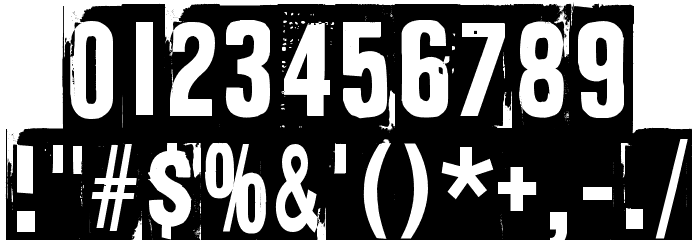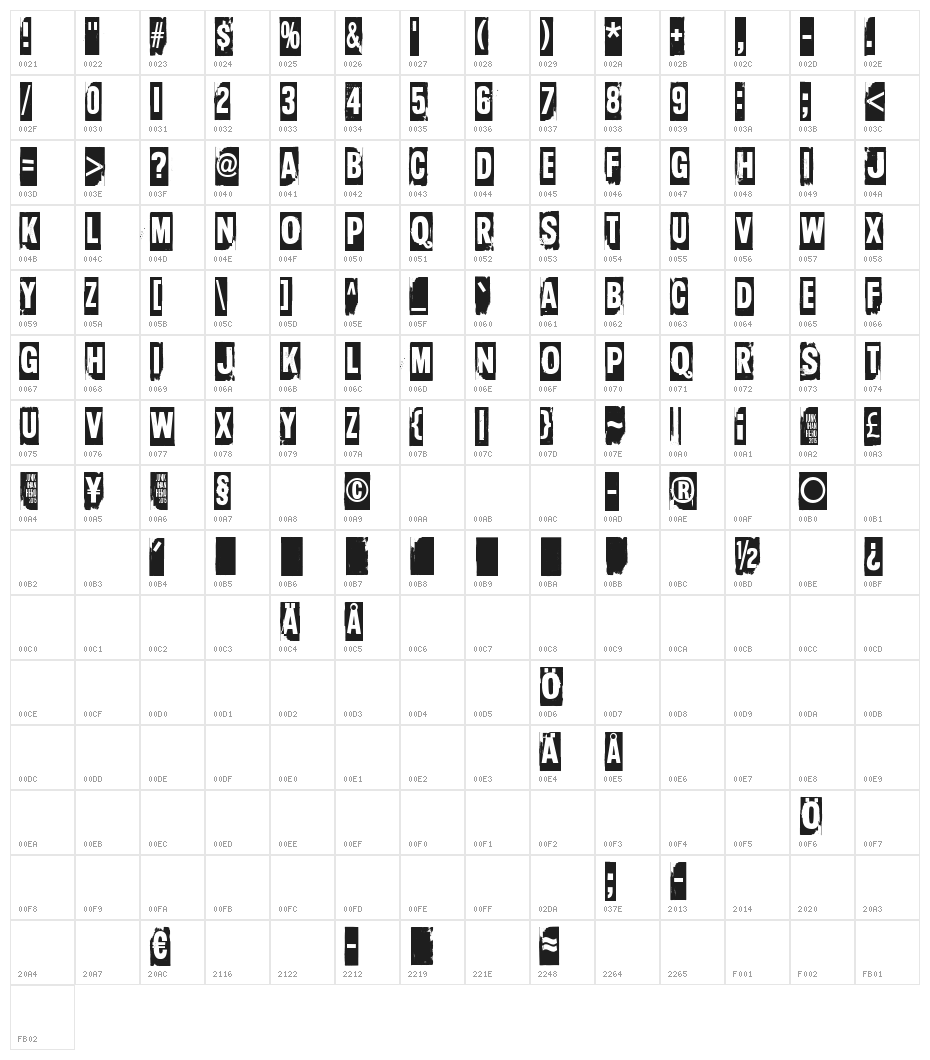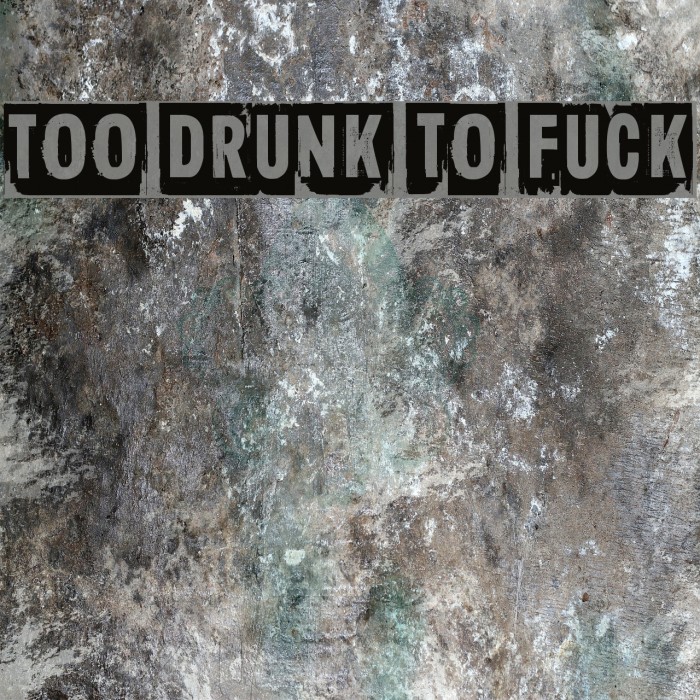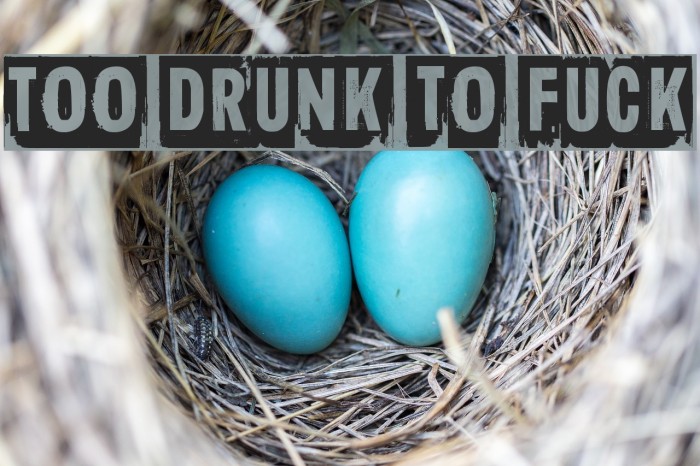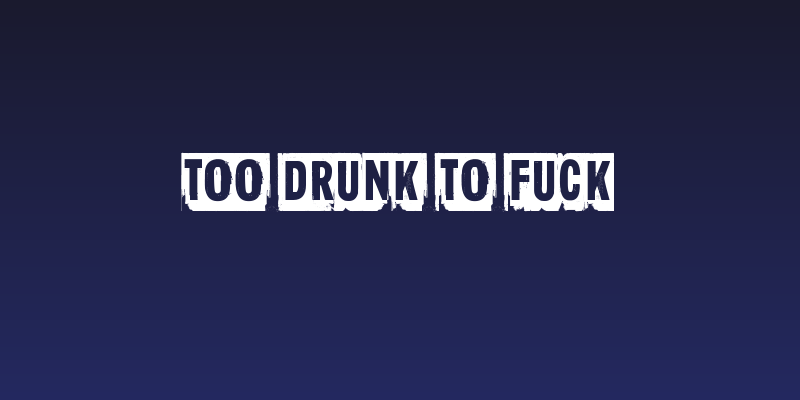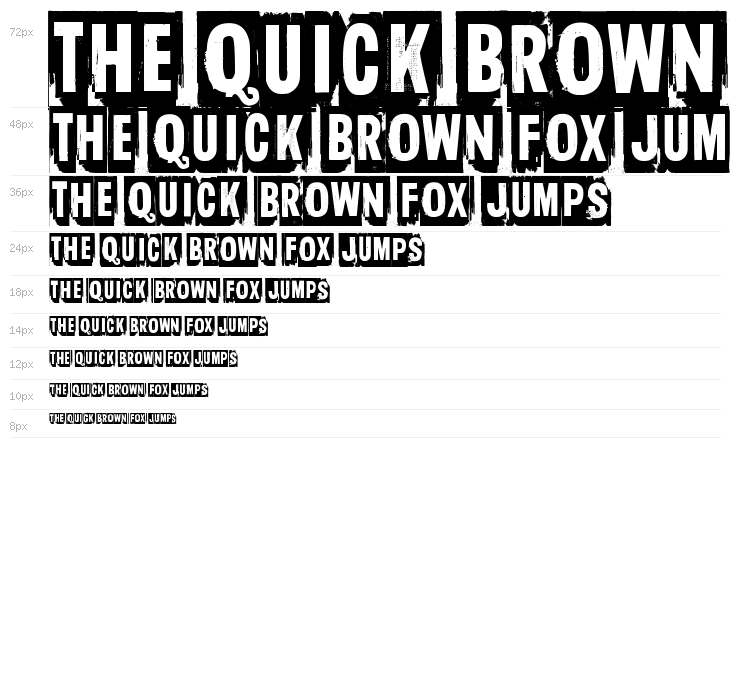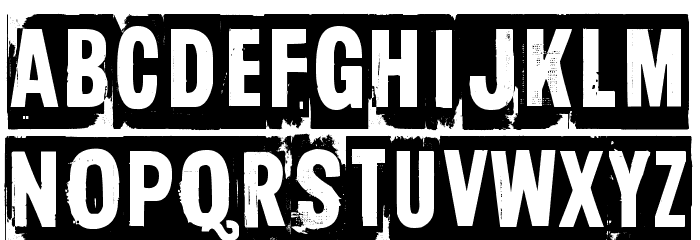
Too drunk to fuck Font
Too drunk to fuck Description
This bold, distressed font features a gritty, urban aesthetic with a stencil-like appearance. The letters are uppercase and have a rough, textured finish that gives them a worn, industrial look. The characters are tightly spaced, enhancing the compact and impactful style. The font's high contrast between the thick strokes and the background adds to its boldness, making it stand out in any design. The numbers and special characters maintain the same distressed and bold characteristics, ensuring consistency across all elements.
| Overall Style | Urban, Industrial, Gritty |
| Proposed Projects | Ideal for projects that require a strong, industrial feel, such as posters, album covers, streetwear branding, or urban-themed graphics. |